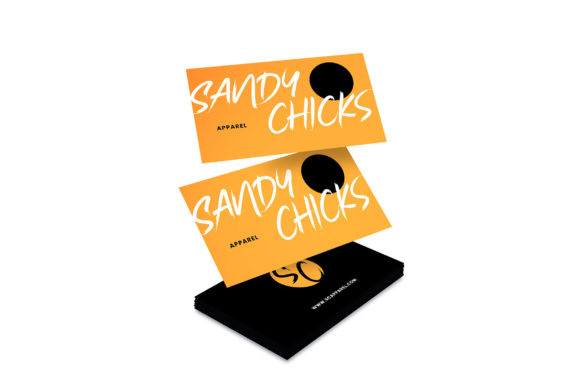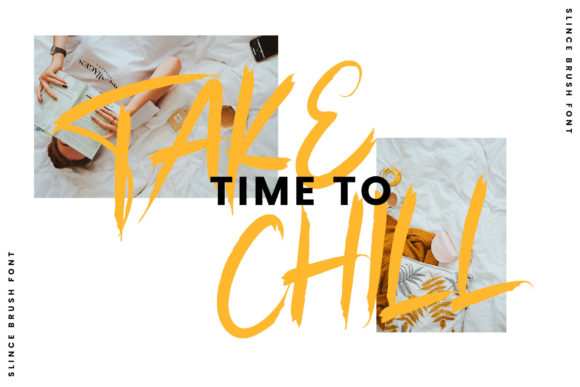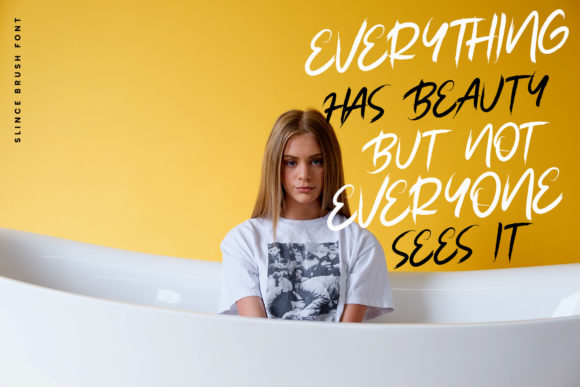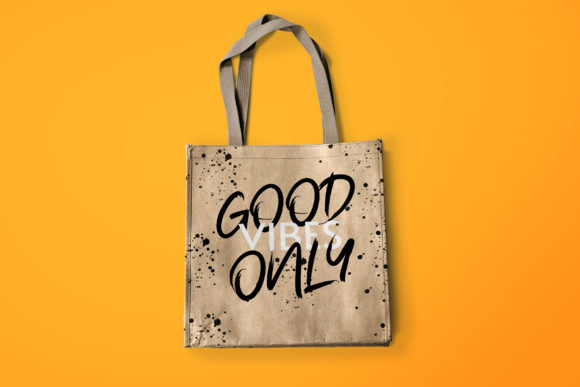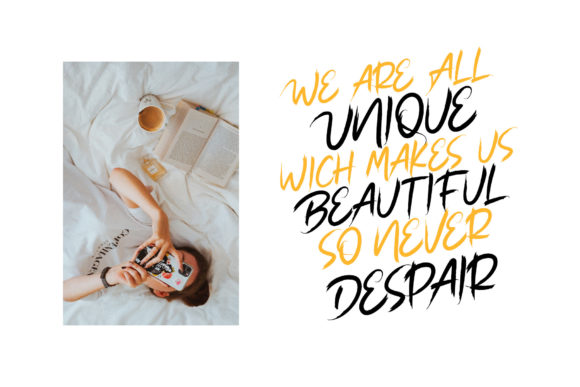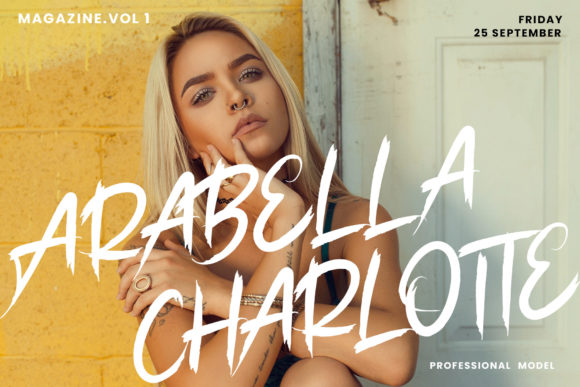
Introduction to Slince Font
Slince is a cool, brushed script font, crafted to give your headlines and logotype projects a stylish touch.
This font reads as strong, confident, and dynamic and can add tons of nostalgic character to your designs .
Key Features of Slince Font